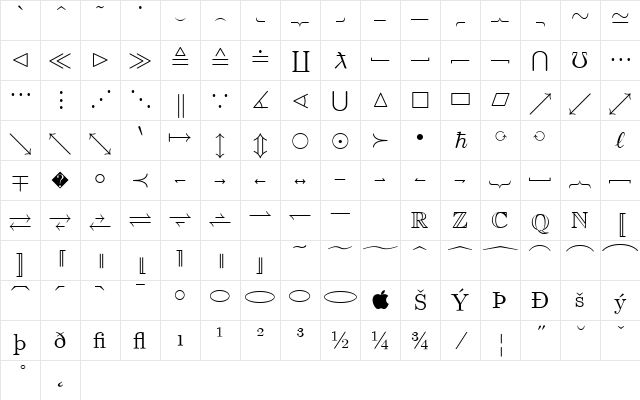
Euclid Extra Regular
Designer: Design Science, Inc
Design Context for Euclid Extra
Euclid Extra is a composed and adaptable typeface that performs quietly and consistently across a wide range of design contexts.